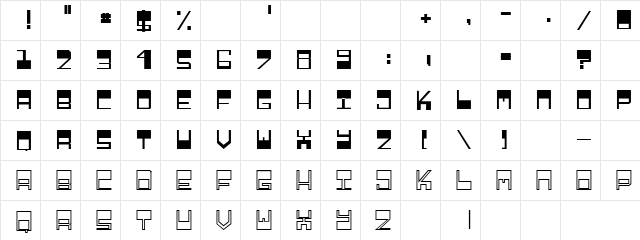
Relieftechnik 1
Design Context for Relieftechnik Typeface
Relieftechnik channels digital-age aesthetics through its sharp, structured letterforms — ideal for brands that want to signal innovation.
Pro Tip: Use Relieftechnik in combination with a neutral sans for body text. Let it define the brand voice in headlines while keeping reading comfortable elsewhere.